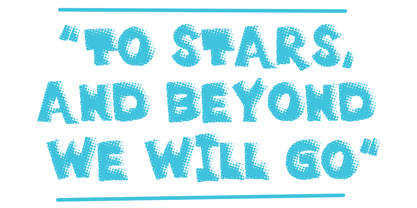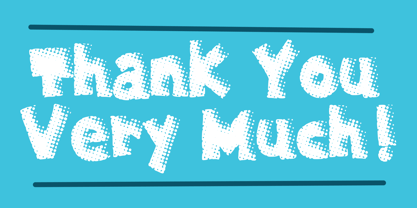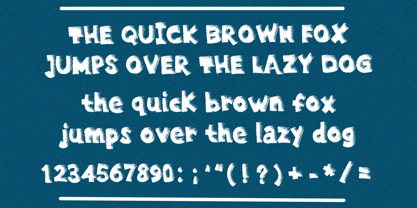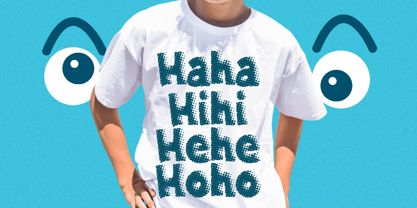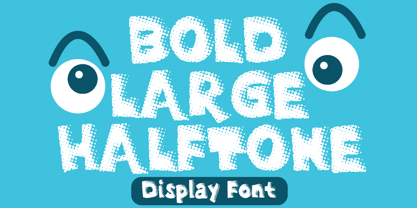
Bold Large Halftone
por Mvmet
La familia tipográfica Bold Large Halftone fue diseñada por Gabriel Valentinus y publicada por Mvmet. Bold Large Halftone contiene 1 estilos. Más información sobre esta familia
Introducing Bold Large Halftone, a playful and captivating font enriched with an exciting halftone twist! This vivacious typeface boasts an undeniable bold charm, making it ideal for a wide range of creative applications. Envision it adding unique appeal to apparel like t-shirts and children's clothing, or enhancing the pages of delightful kids' books. Picture it radiating lively conviviality in party essentials, or providing a vividly audacious accent to greeting cards. This dynamic font is also a perfect match for stickers, posters, and banners that require a pronounced and jovial expression. With Bold Large Halftone, it’s about more than just crafting splendid designs; it's about channeling a world of joy, fun, and festive vibes!
Diseñadores: Gabriel Valentinus
Fundición: Mvmet